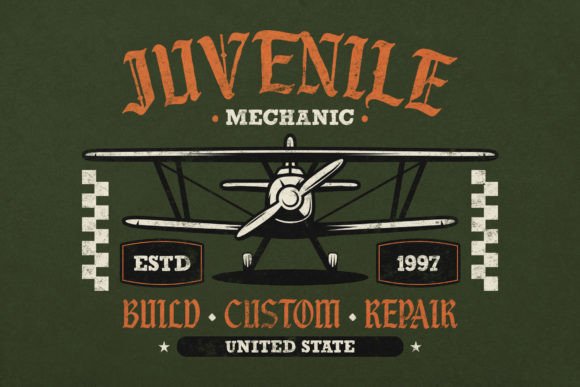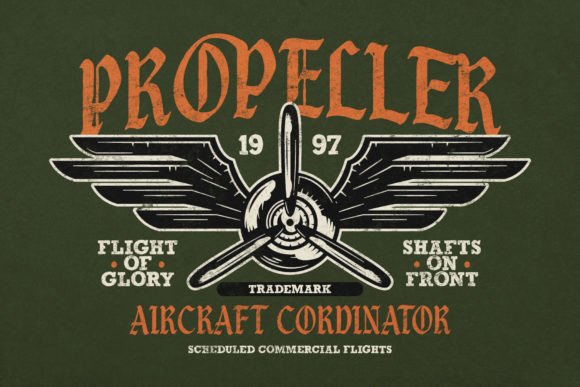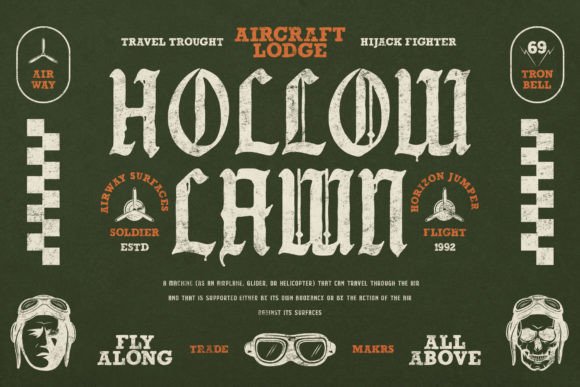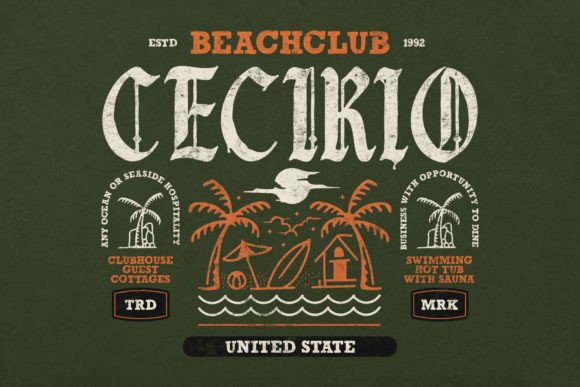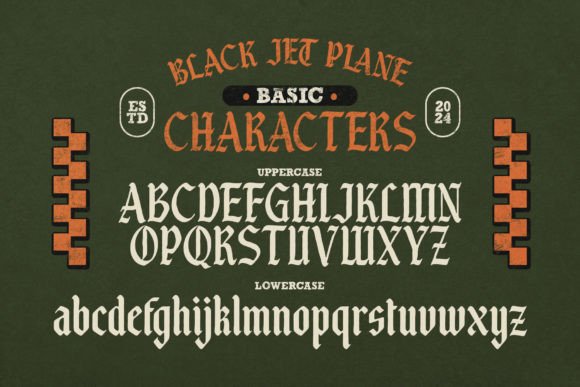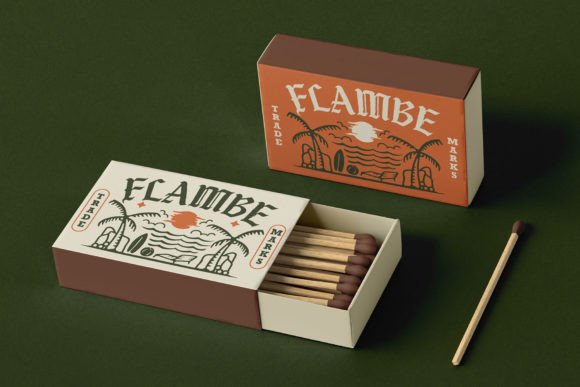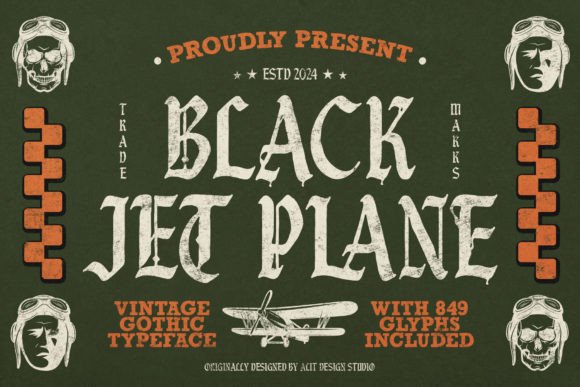
Introducing Black Jet Plane Font: Elevate Your Designs with a Bold and Powerful Typeface
Are you looking for a font that can add a touch of rugged charm and vintage aesthetics to your designs? Look no further than the Black Jet Plane Typeface, a bold and powerful black letter font that is sure to elevate your creations. Crafted with precision and character, this typeface is perfect for creating striking headlines, logos, posters, and more.
Authentic Rough Vintage Style
Inspired by traditional blackletter fonts, Black Jet Plane brings a weathered, time-worn feel to your projects, making it ideal for designs that demand a bold, historical touch. The font’s authentic rough vintage style is sure to transport your audience back in time, evoking a sense of nostalgia and classic charm. Whether you’re working on a branding project, a poster, or a packaging design, Black Jet Plane is the perfect choice for adding a touch of vintage flair.
Extensive Character Set
One of the standout features of Black Jet Plane is its extensive character set. With a whopping 849 characters, this typeface offers endless possibilities for creative expression. The font includes a wide range of alternates and ligatures, allowing you to create unique and custom typographic compositions that are sure to set your designs apart. Whether you’re looking to create a bold statement or a subtle nuance, Black Jet Plane has got you covered.
Unicode PUA Encoding for Seamless Access
Black Jet Plane also features Unicode PUA encoding, making it easy to access the special characters and alternates in the font. This means that you can seamlessly integrate the font into your design workflow, without having to worry about complicated character mapping or encoding issues. With Black Jet Plane, you can focus on what matters most – creating stunning designs that capture your audience’s attention.
Black Jet Plane is the perfect choice for designers and crafters who are looking to add a touch of vintage charm to their creations. Whether you’re working on a personal project or a client’s brief, this font is sure to inspire your creativity and take your designs to the next level. With its bold and powerful aesthetic, Black Jet Plane is ideal for a wide range of design applications, including:
- Headlines and titles: Create striking headlines and titles that grab attention and make a lasting impression.
- Logos and branding: Add a touch of vintage charm to your logos and branding materials, and create a unique identity for your business.
- Posters and flyers: Create eye-catching posters and flyers that showcase your message in a bold and impactful way.
- Packaging design: Add a touch of nostalgia and classic charm to your packaging designs, and make your products stand out on store shelves.
Bring the Bold, Rough, and Vintage Spirit to Your Designs
With Black Jet Plane, you can bring the bold, rough, and vintage spirit of a bygone era into your designs. This font is more than just a collection of letters – it’s a design statement that can elevate your creations and make them truly unforgettable. So why wait? Download Black Jet Plane today and watch your designs take flight!
- Bold and powerful black letter font
- Authentic rough vintage style
- Extensive character set with 849 characters
- Unicode PUA encoding for seamless access
- Ideal for headlines, logos, posters, and more
In conclusion, Black Jet Plane is a must-have font for any designer or crafter looking to add a touch of vintage charm to their creations. With its bold and powerful aesthetic, extensive character set, and seamless Unicode PUA encoding, this font is sure to elevate your designs and take them to new heights. So don’t miss out – download Black Jet Plane today and experience the power of vintage typography for yourself!